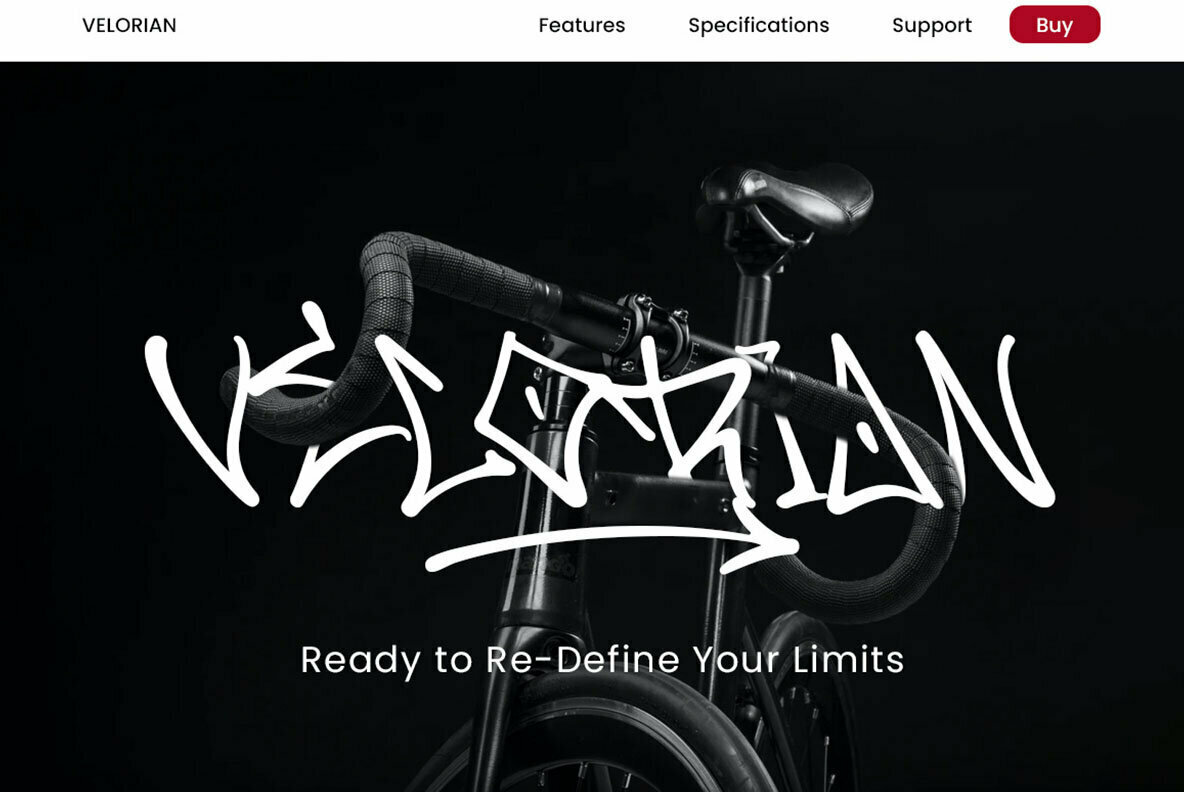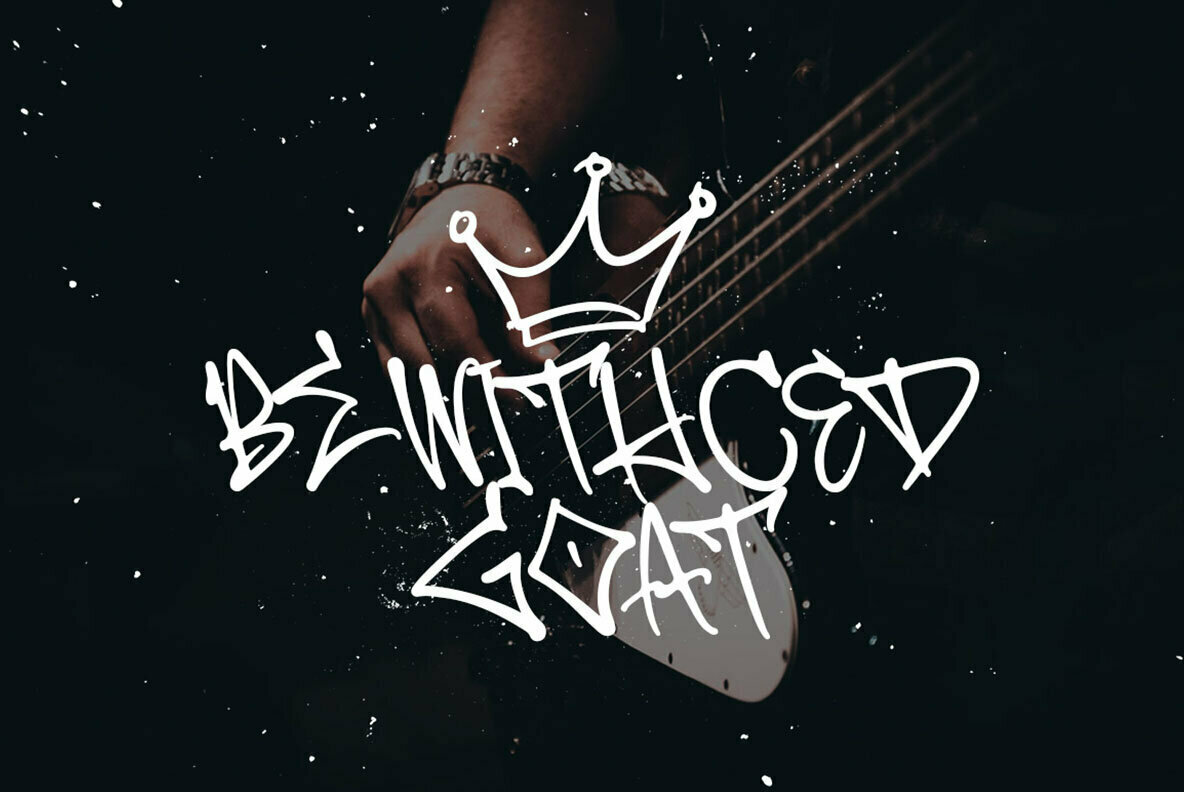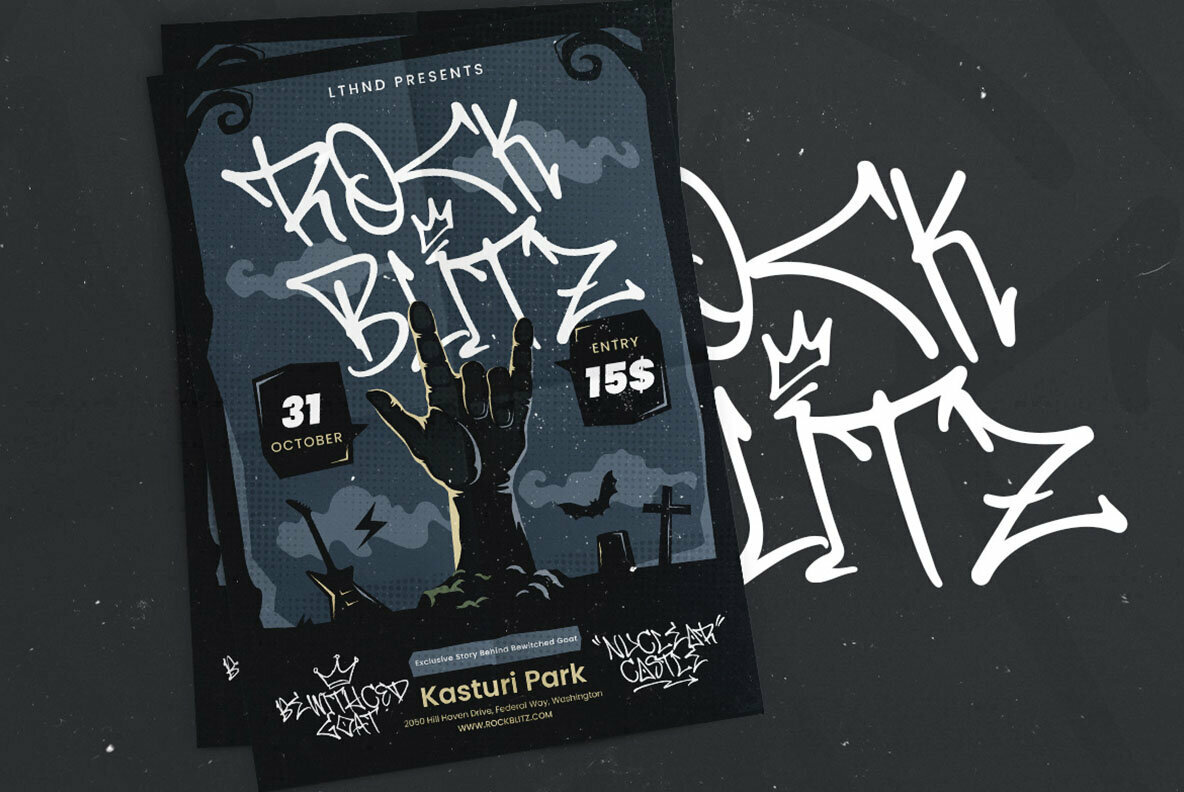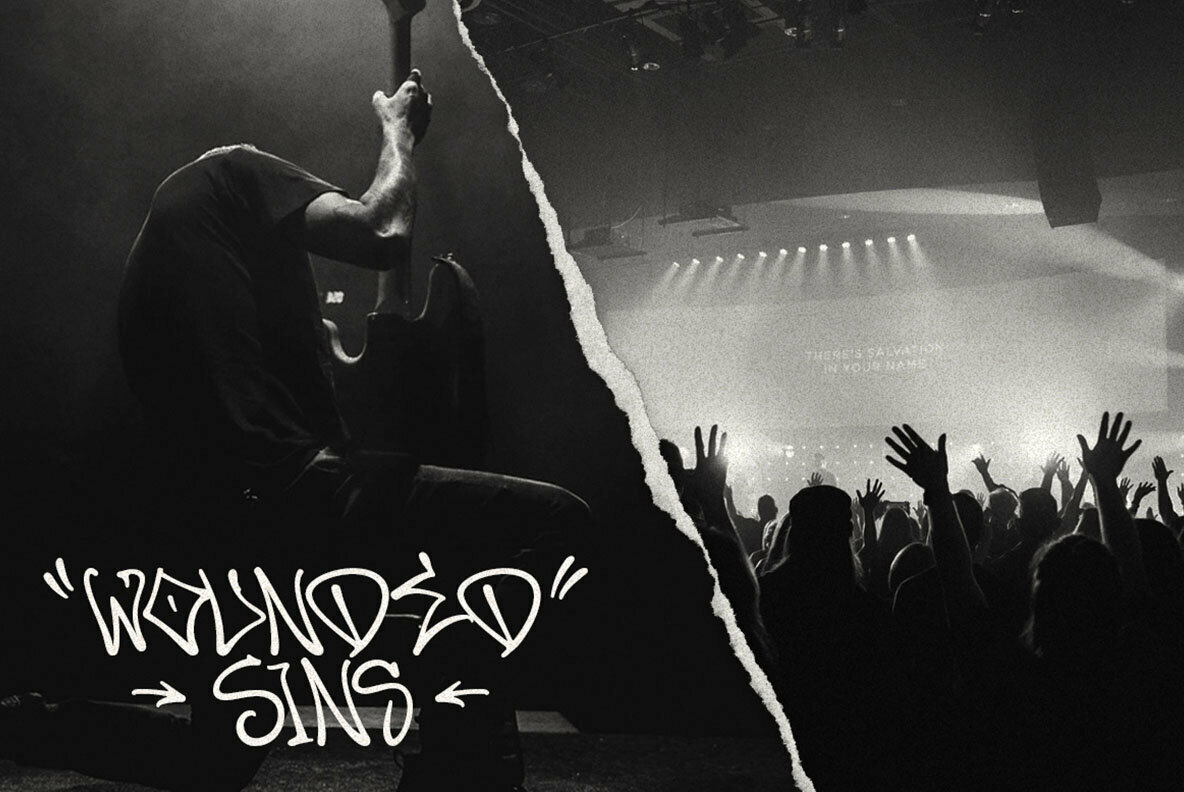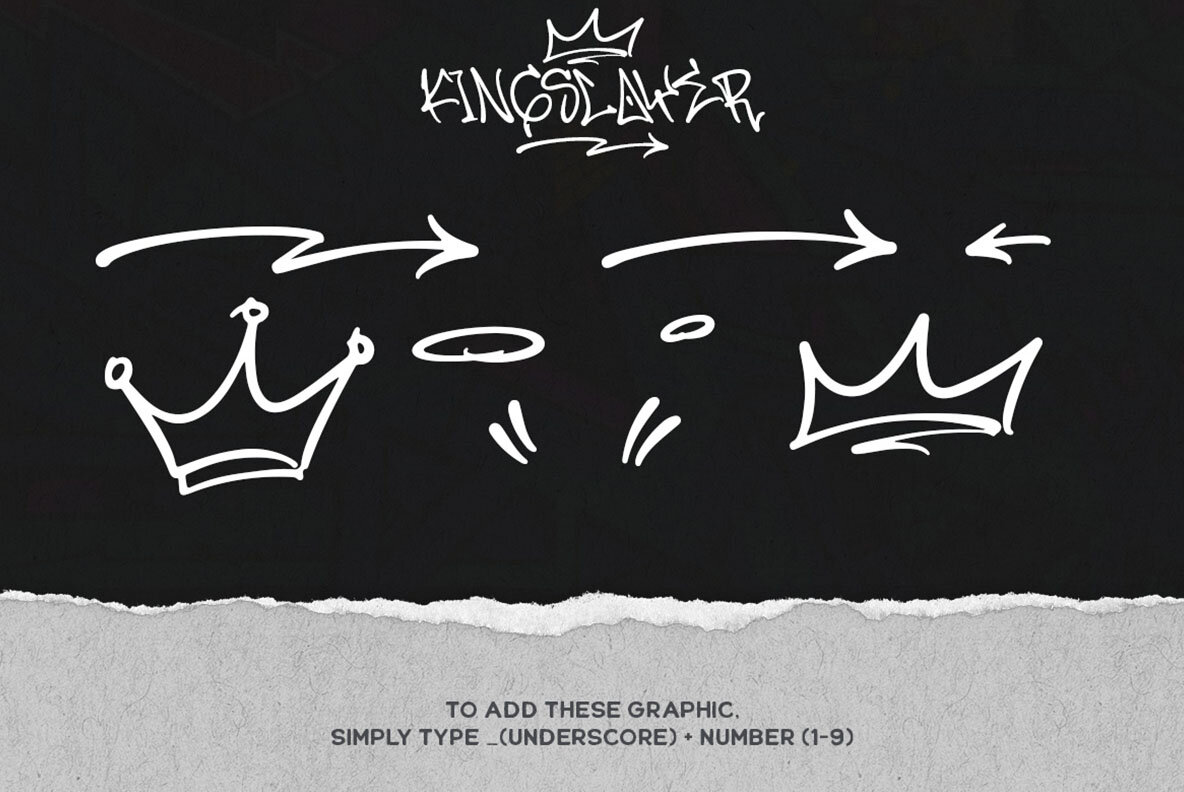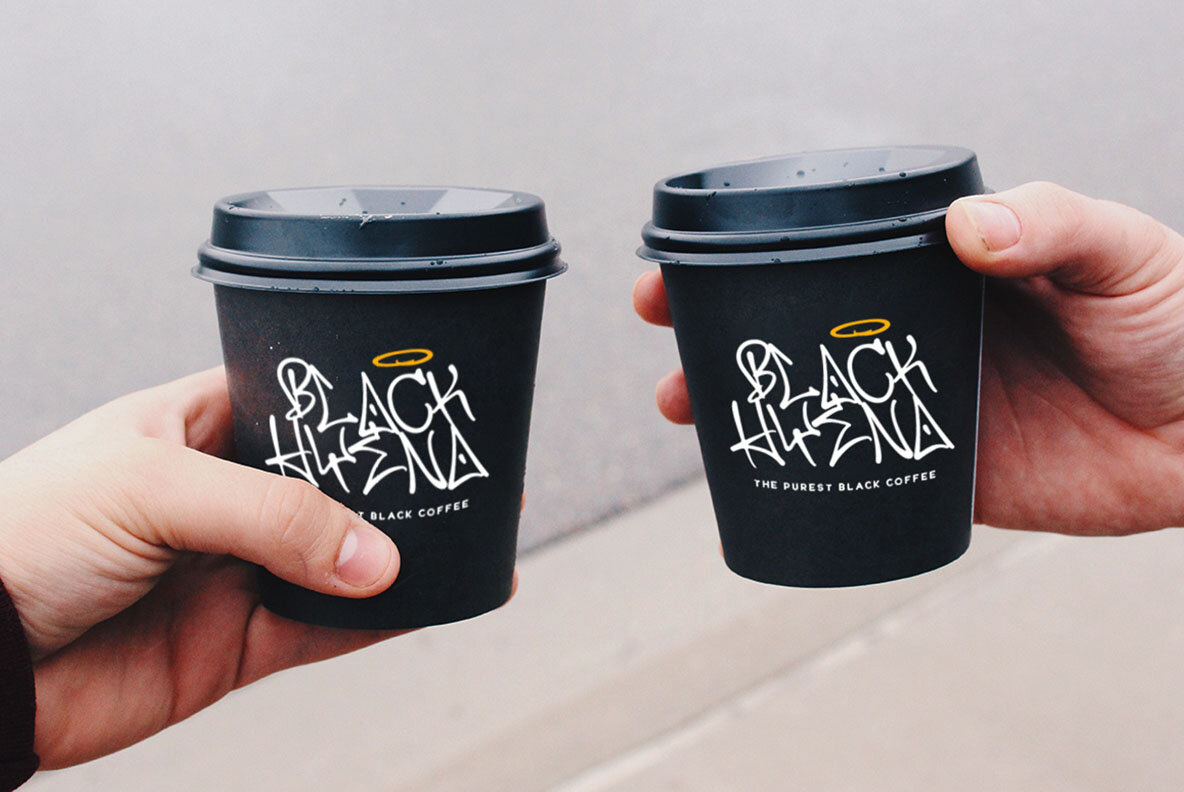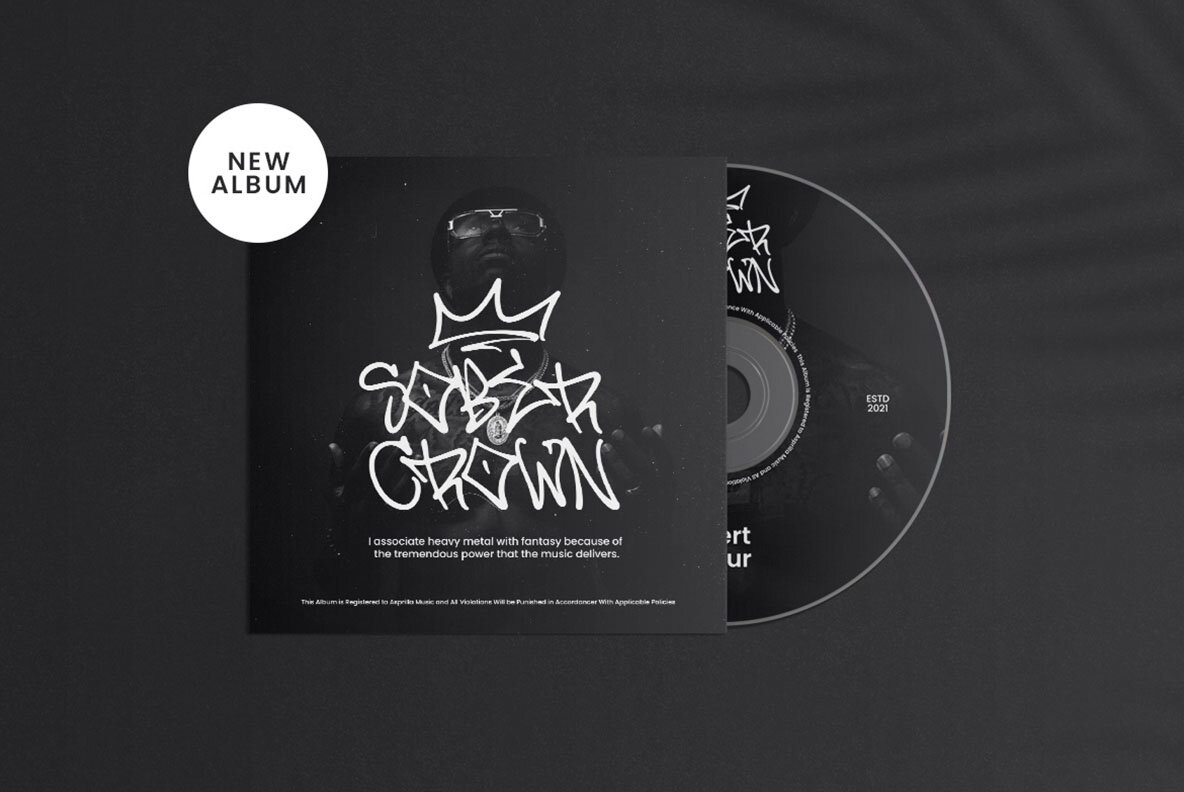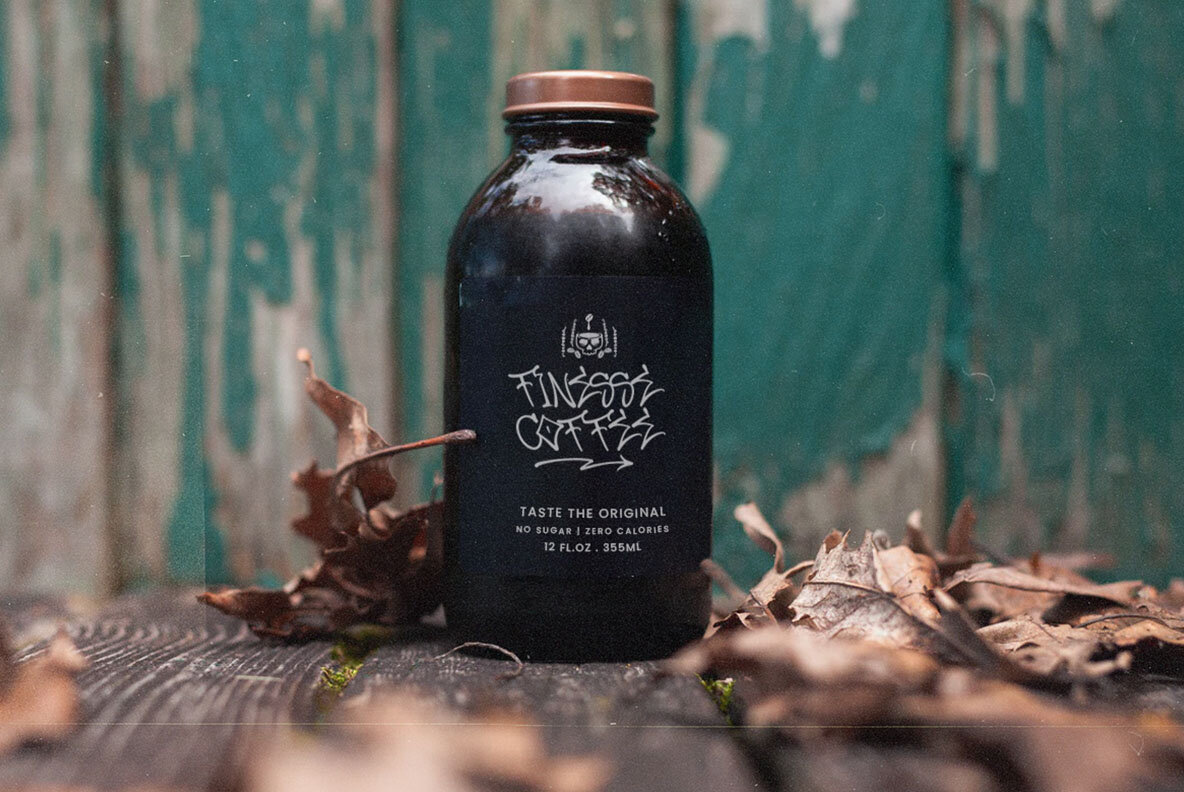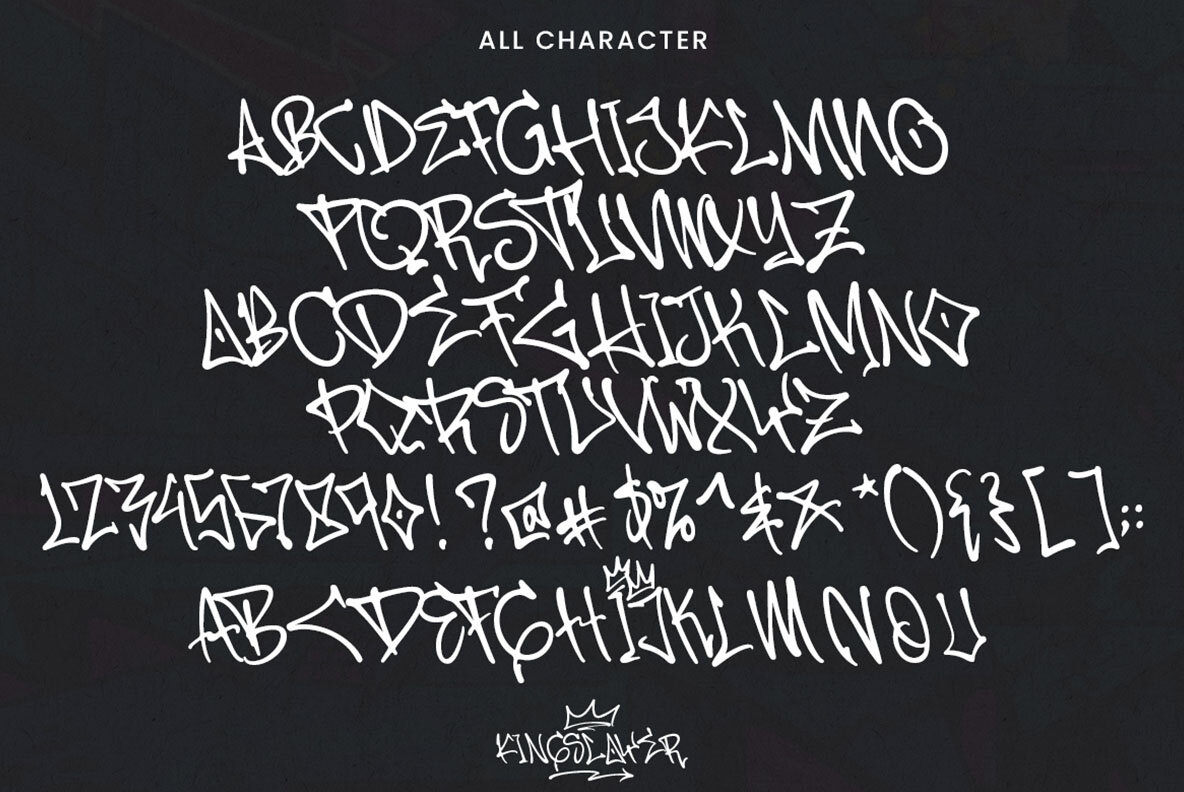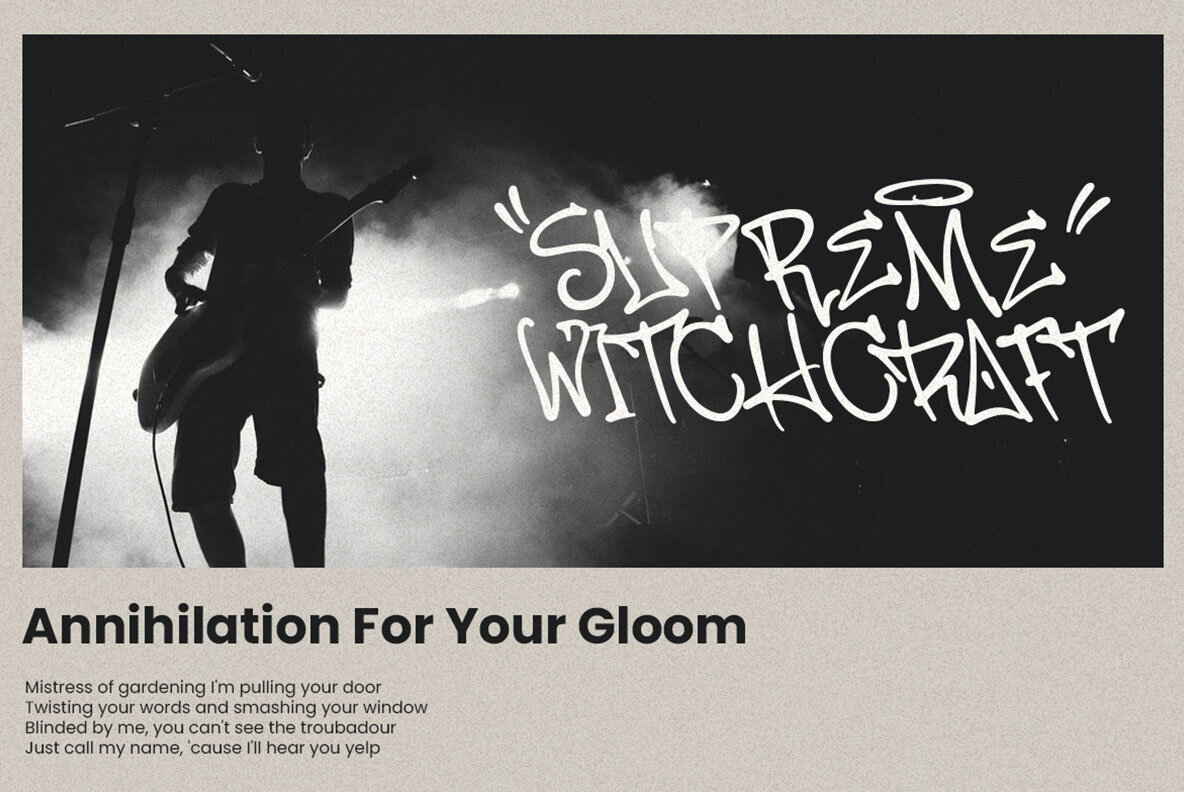
Kingslayer Font
Kingslayer
Kingslayer captures the essence of urban artistry with its unique graffiti-inspired letterforms. Crafted to catch the eye, this font is designed to enhance your branding projects, packaging, and headlines with a bold and dynamic presence. Its street-smart style makes it an ideal choice for creating graffiti posters that command attention.Kingslayer: A Distinct Graffiti Font for Impactful Design